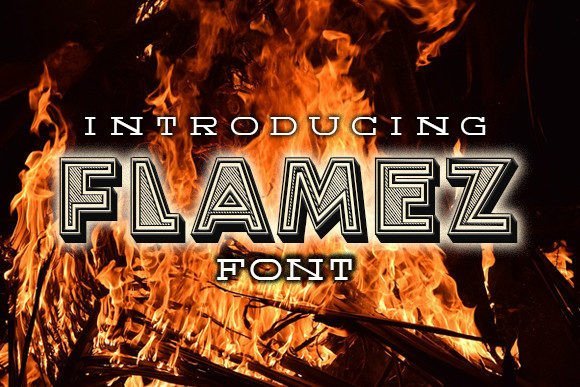
The Spark that Ignites Creativity
Have you ever been in the middle of a design project, staring at a blank canvas, and suddenly a spark of inspiration hits? The ideas start flowing, and before you know it, your vision comes to life in a way that leaves you breathless. That’s exactly what happened when the Flamez Font was born – a bold and striking decorative typeface that’s about to set your designs ablaze.
Whether you’re creating eye-catching t-shirts, posters, or flyers, Flamez Font is the perfect addition to your design arsenal. Its unique style and flair will elevate your work from ordinary to extraordinary, making it a valuable asset for any designer looking to make a statement.
Key Features of Flamez Font
- Unique Characteristics: Hand-drawn design with bold, fiery lines and subtle texture effects, giving it a unique and dynamic feel
- Style Options: Includes 6 different font styles: Regular, Italic, Bold, Bold Italic, Outline, and Shadow
Review: Flamez Font
Overall, I’d say Flamez Font is a mixed bag. It has some great qualities that make it stand out, but it also has some limitations that might make it less suitable for certain projects.
- ✨ The font’s bold, energetic feel is perfect for attention-grabbing headlines and titles.
- ✨ The unique character set and ligatures add a touch of personality to the font.
- ✨ Flamez Font is highly customizable, with a wide range of font sizes, weights, and styles available.
- ⚠️ The font can be difficult to read at smaller sizes, especially in body text.
- ⚠️ The unique character set and ligatures can sometimes be distracting or difficult to understand, particularly in formal or professional contexts.
- ⚠️ The font’s bold, energetic feel can be overwhelming in some projects, making it difficult to achieve a balanced design.
Overall, I’d recommend Flamez Font for projects where you want to make a bold statement or add some personality to your design. However, for projects that require a more subtle or professional tone, you may want to consider a different font.
Getting the Most Out of Flamez Font
For best results, use Flamez Font for headings and titles. This font is ideal for creating eye-catching and dynamic text effects. Experiment with different font sizes, colors, and combinations to achieve the desired look.
Flamez Font is suitable for:
- Creating bold and eye-catching headings.
- Adding a touch of elegance to invitations and event materials.
- Designing logos and branding materials.
Alternatives to Flamez Font
Great Vibes Font is a modern script font that is perfect for creating a friendly and approachable atmosphere. It’s ideal for use in invitations, social media graphics, and other designs where a casual, handwritten feel is desired. Compared to Flamez Font, Great Vibes has a more relaxed and free-flowing style, making it suitable for a wider range of applications.
Pacifico Font is a beautiful script font with a beachy, laid-back vibe. It’s perfect for use in designs that evoke a sense of relaxation and calmness, such as travel brochures, restaurant menus, and spa advertisements. While Flamez Font has a more dramatic and bold feel, Pacifico Font is softer and more understated, making it suitable for designs that require a more subtle touch.
Dancing Script Font is a elegant and sophisticated script font that’s perfect for use in high-end designs. It’s ideal for creating a luxurious and refined atmosphere, making it suitable for use in fashion designs, luxury product packaging, and high-end branding. Compared to Flamez Font, Dancing Script is more refined and polished, making it suitable for designs that require a touch of elegance.
Carolyna Pro Font is a modern script font that’s perfect for use in designs that require a sense of sophistication and elegance. It’s ideal for creating a high-end and luxurious atmosphere, making it suitable for use in fashion designs, luxury product packaging, and high-end branding. While Flamez Font has a more dramatic and bold feel, Carolyna Pro Font is more refined and polished, making it suitable for designs that require a touch of sophistication.